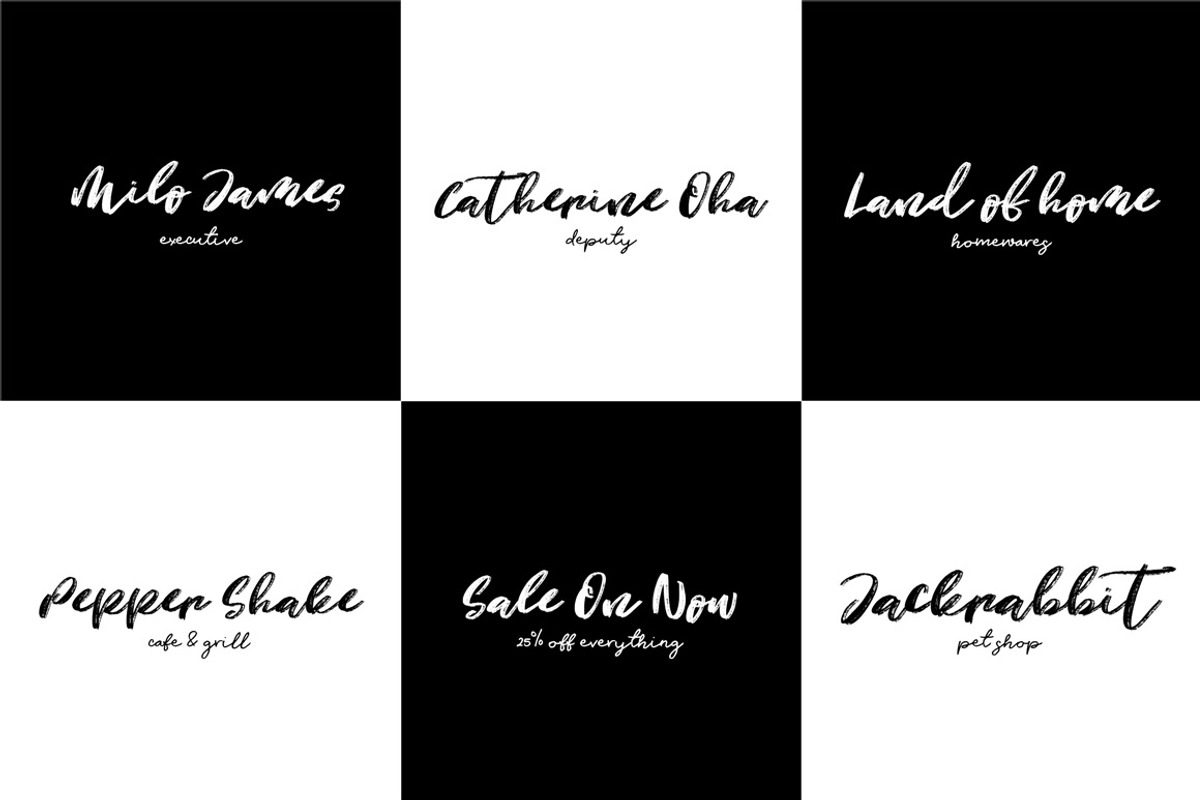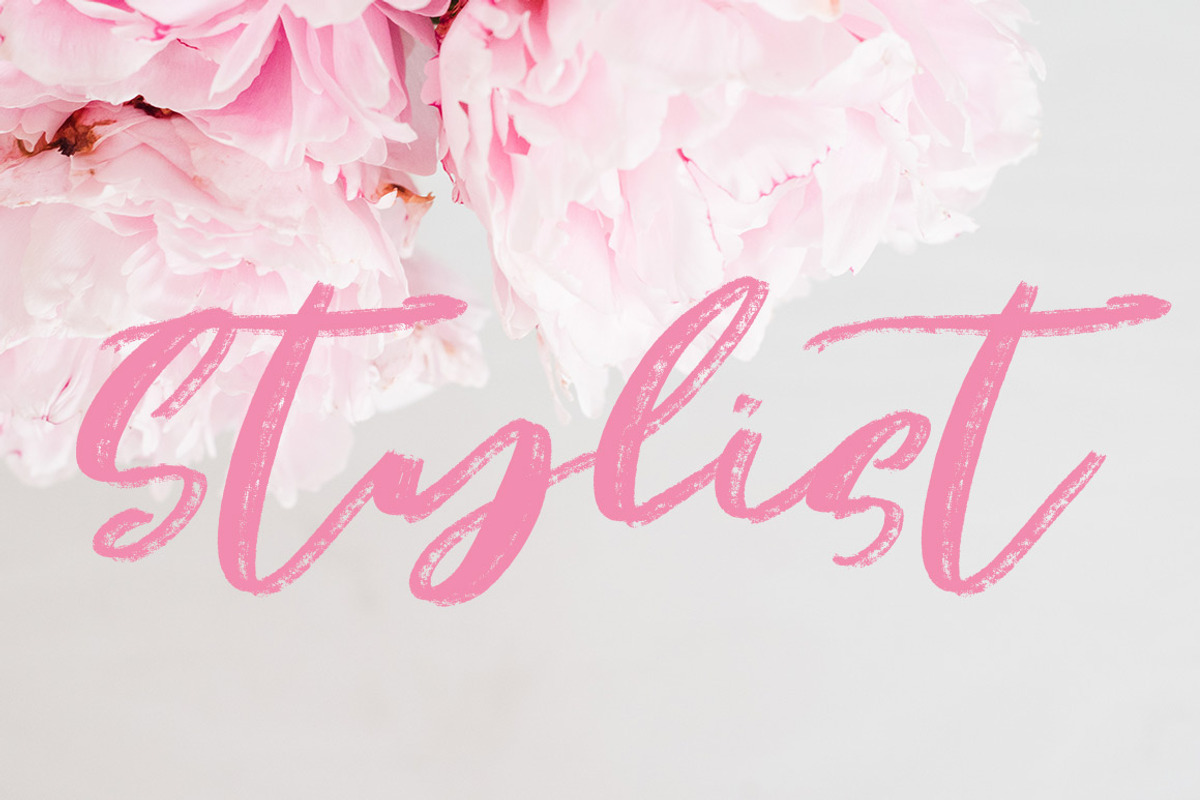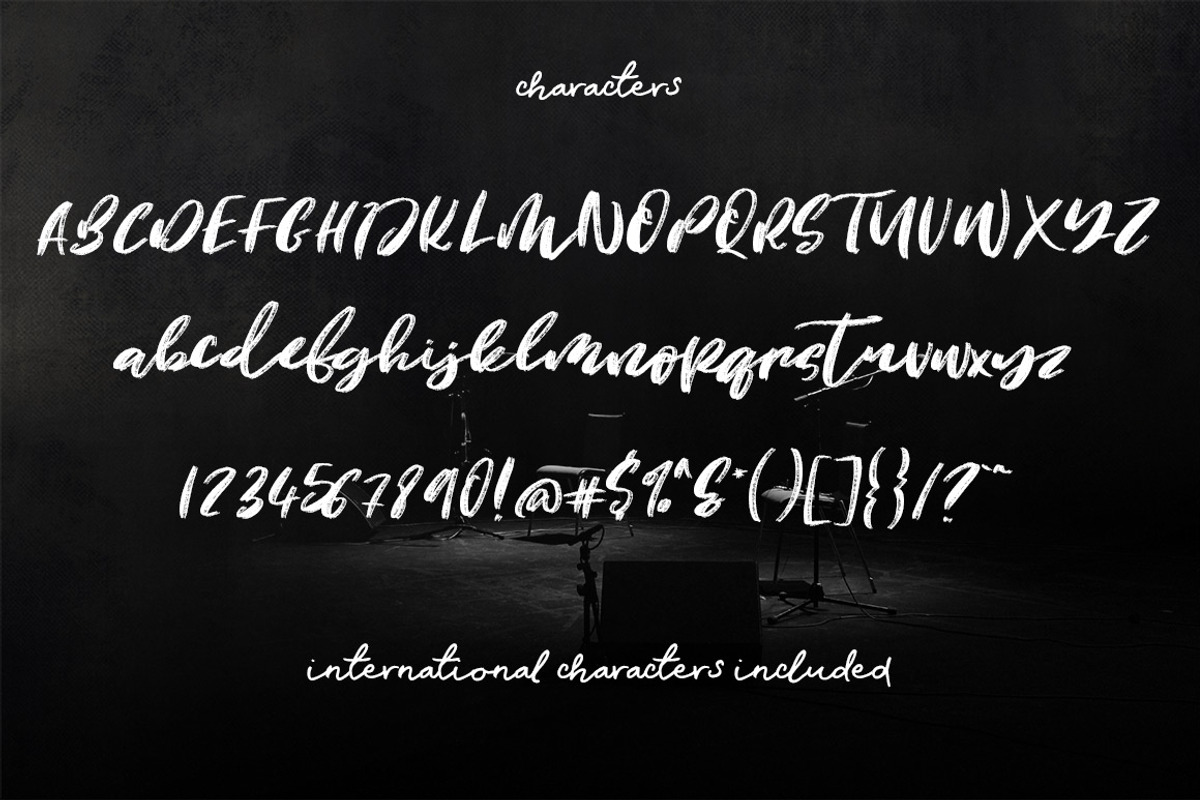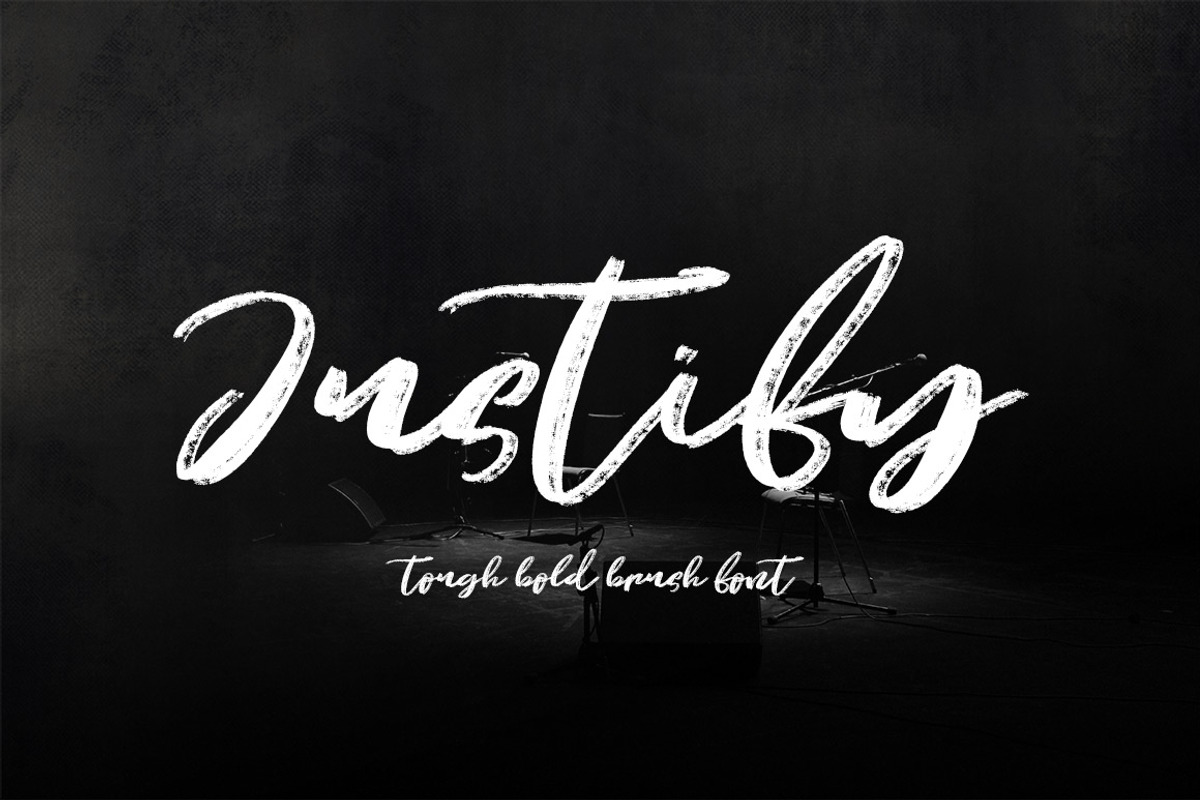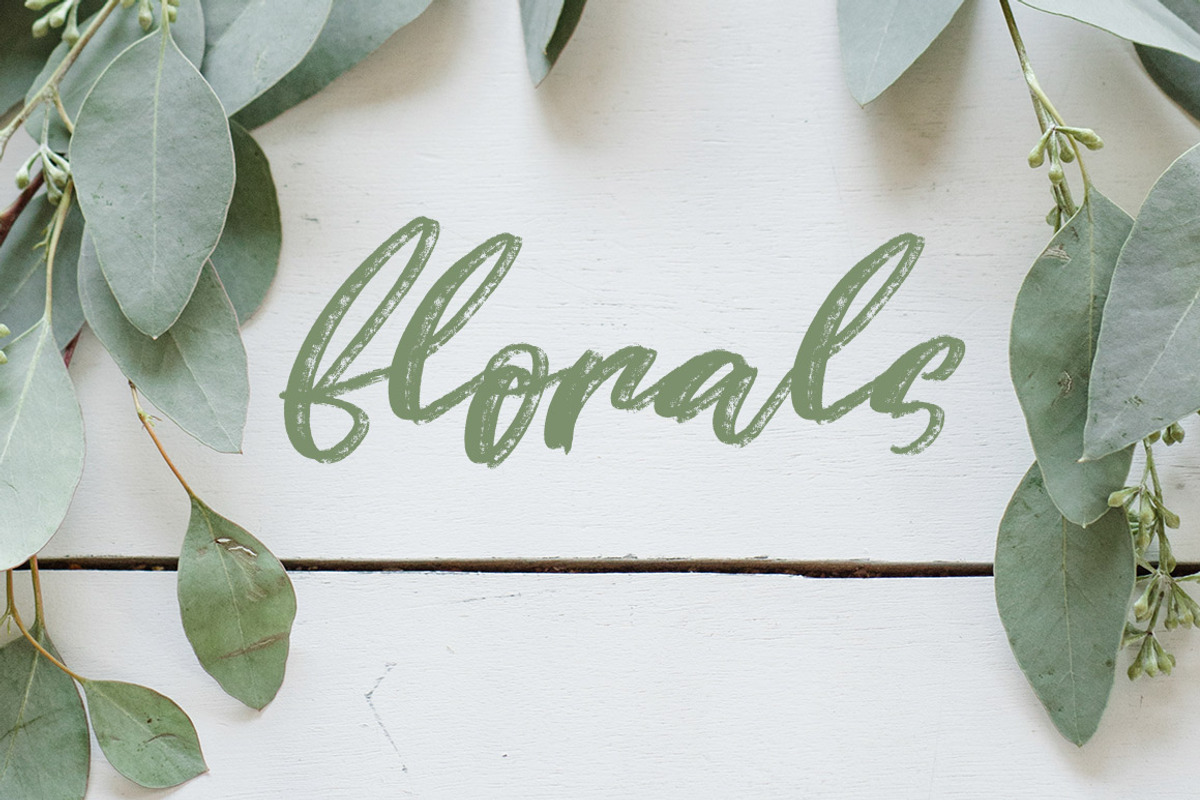
Justify Brush Script Font
Introducing Justify Brush Script Font
Super textured hand brushed script font for so many awesome uses such as quotes, instagram, advertising, logos, invites, weddings, and much much more.
- International Characters included.
Why Justify Brush Script Font is worth a look
Justify Brush Script Font by Creativeqube Design fits naturally into Branding, posters, packaging, typography.